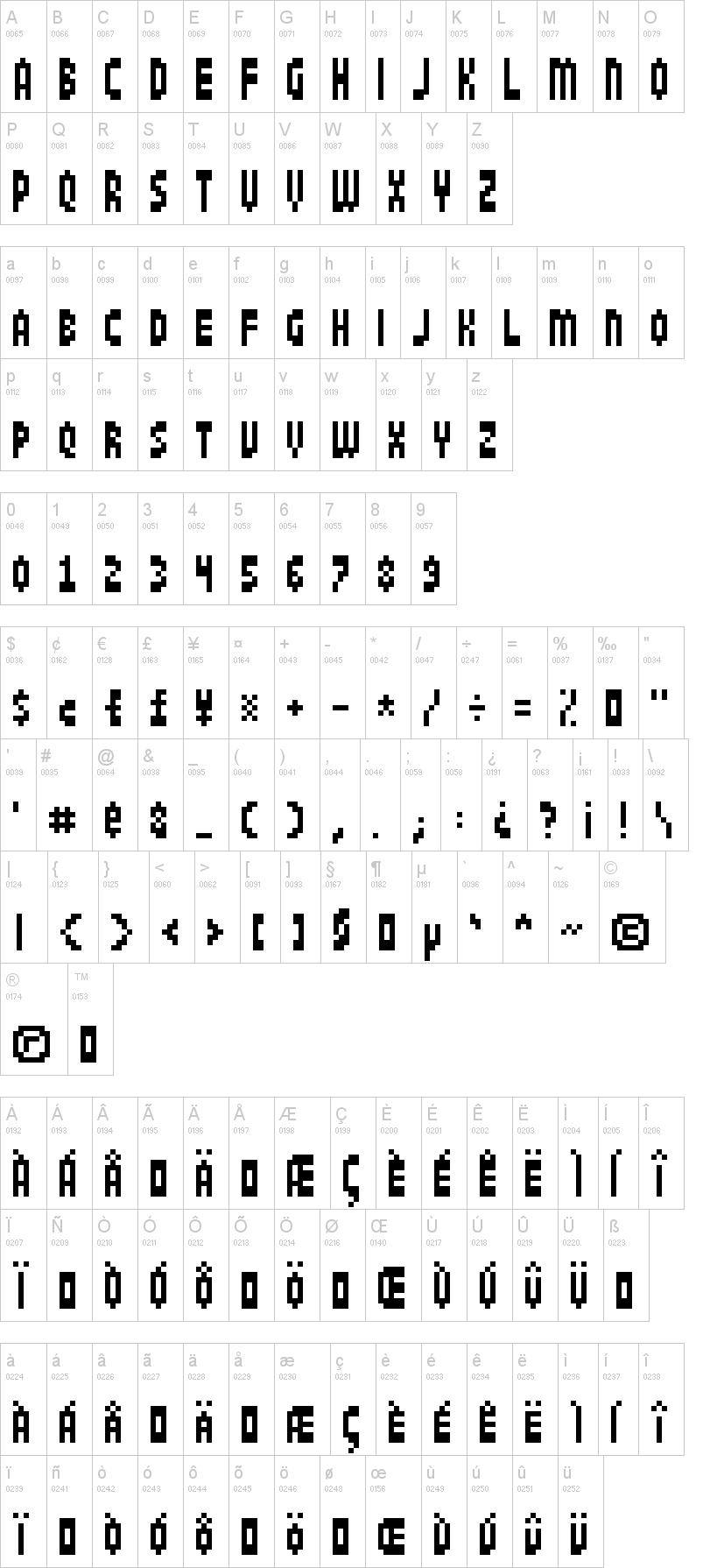
Note of the authorJamboree is a minimalistic sans-serif pixel font recreation based on the original team and player name font appearing in the SNES versions of the video games NBA Jam, NBA Jam Tournament Edition, and NBA Hangtime, developed by Iguana Entertainment and Funcom, and released by Acclaim Entertainment and Midway Games between 1994 and 1996.
The character set of this font was greatly expanded with countless additional special characters, diacritic variants, unique glyphs and the like, each one of them designed to match the spirit and style of the original font design.
Features:
474 characters total
Proportional sans-serif display typeface
Countless additional special characters, diacritic variants, etc.
Capital letters based on team names, small letters on player names
Includes various small player stat and stat value characters